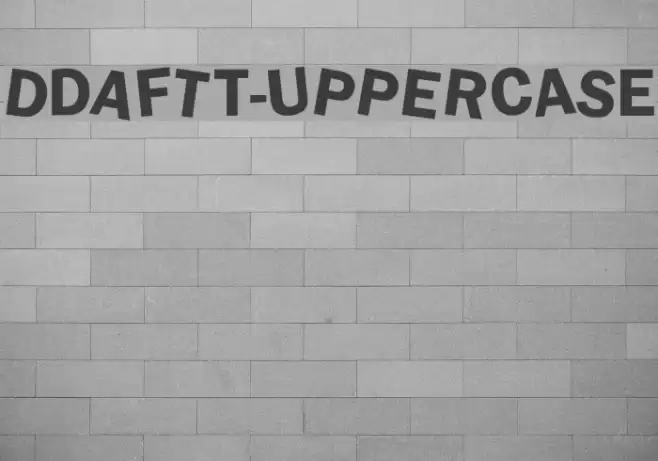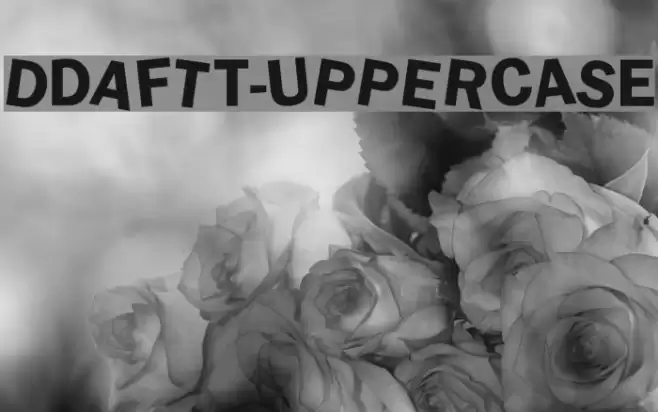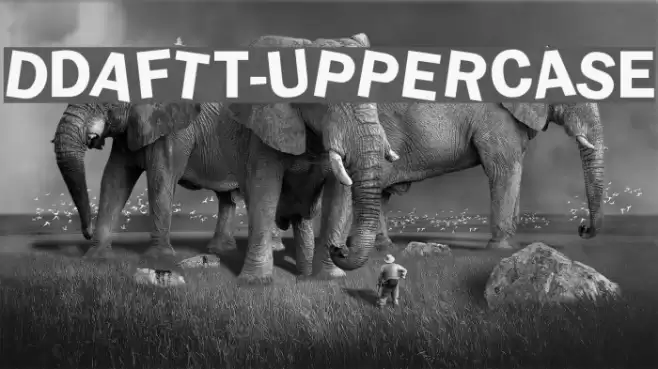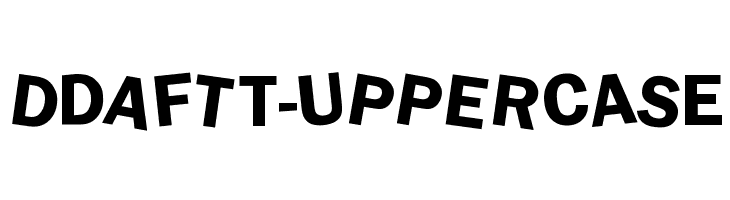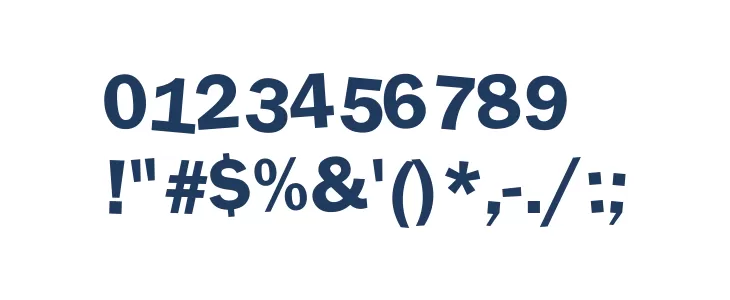
dDAFTt-UPPERcase Font
dDAFTt-UPPERcase Description
This bold and dynamic font features uppercase letters with a slight slant, giving it a sense of movement and energy. The characters are thick and robust, with a consistent stroke width that conveys strength and stability. The numbers and special characters follow the same bold style, ensuring uniformity across all elements. The font's design is clean and modern, making it suitable for a variety of applications where impact and readability are essential.
A bold, slanted uppercase font with a modern and dynamic style from Capitals fonts.
- Proposed Projects: Ideal for headlines, posters, branding, and advertising where a strong visual impact is needed.